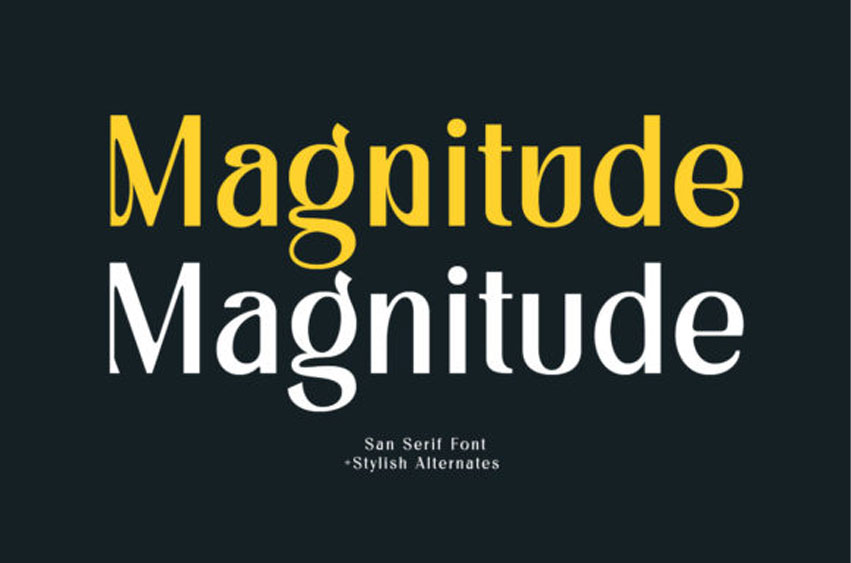
Magnitude Font
Magnitude Font is a stylish display font with a unique letterform.
The style makes this font looks great and stand out for titles, headlines, logos, invitations, magazines, or more!